After years of obsessing over perfect kerning and wrestling with sterile corporate fonts, I’ve discovered typography’s best-kept secret: marker fonts are pure magic.
These bad boys are like that friend who shows up to a fancy dinner party in paint-splattered jeans and somehow becomes the life of the party.
They’re messy, unapologetic, and impossible to ignore—basically the punk rock of the typography world.
Here’s the thing about marker fonts that gets me every single time: they’re human. In our hyper-digital universe of pixel-perfect everything, these beauties serve up authenticity on a silver platter.
Those slightly imperfect strokes, the way the ink pools just a tiny bit too much—it’s like finding a handwritten love letter in a world of text messages. Ready to dive into the wild, wonderful world of marker fonts?
Trust me, once you master these expressive little rebels, your designs will never be boring again!
The Best Marker Fonts to Try in 2026
Grock Marker
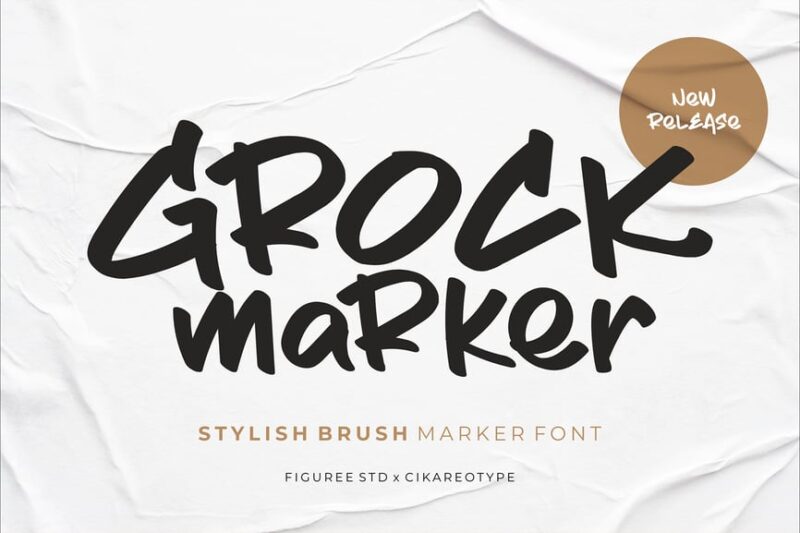
Grock Marker is a stylish brush marker font that combines decorative elements with a handwritten feel. Its bold strokes and casual appearance make it perfect for creating eye-catching designs with a personal touch.
Filling station
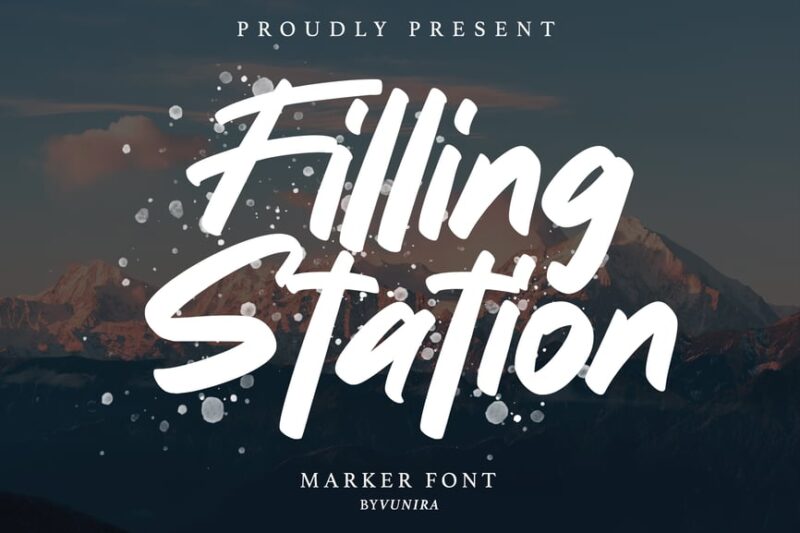
Filling station is a versatile marker font that blends sans-serif and script styles. Its unique combination of structured and freeform elements makes it ideal for display purposes and decorative applications in graphic design projects.
Leymark
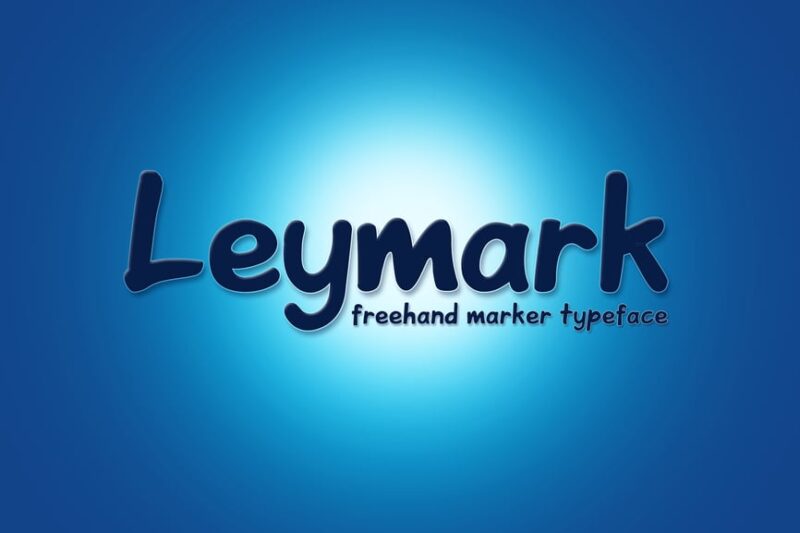
Leymark is a playful sans-serif font with a marker-like quality. Its fun and decorative nature makes it suitable for various design projects, especially those requiring a lighthearted and approachable feel.
Markerina
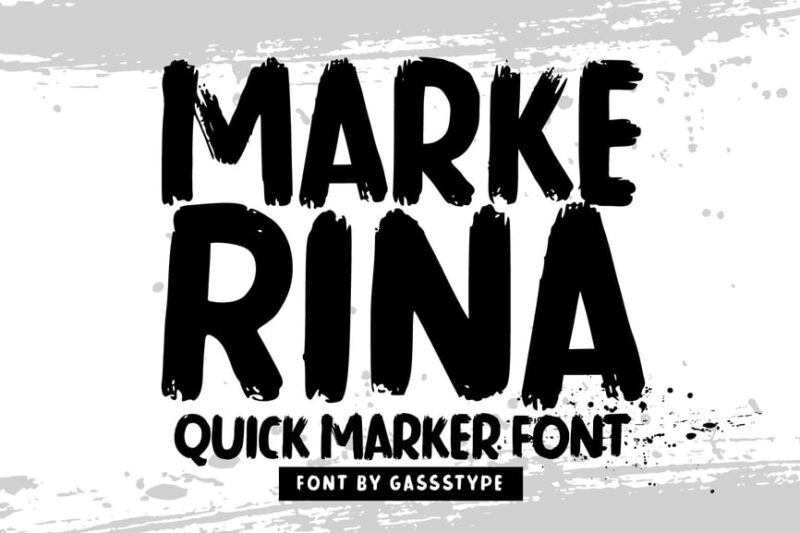
Markerina is a bold marker brush font with a strong handwritten character. Its thick strokes and dynamic appearance make it perfect for creating impactful headlines and eye-catching design elements.
Jhon Back Street Marker
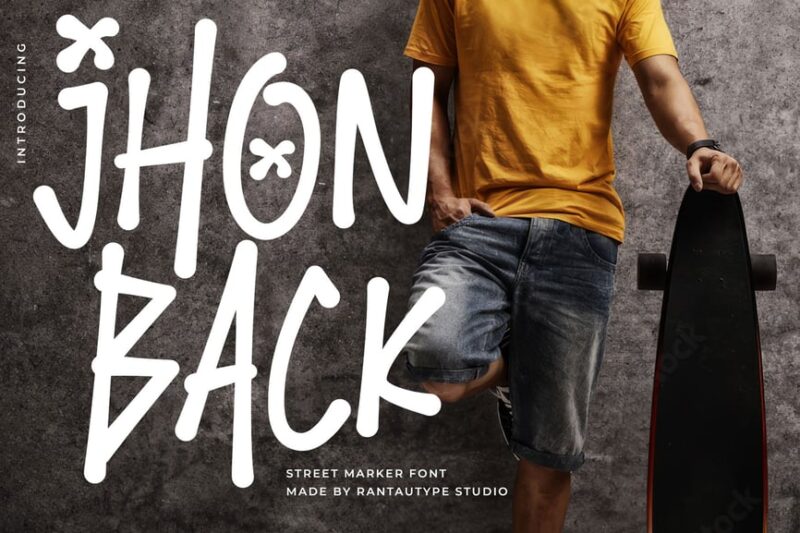
Jhon Back Street Marker is a handwritten font with a street-style aesthetic. Its rough edges and casual flow make it ideal for designs that require an urban, edgy feel, such as posters or brand identities.
Marker Vandero
Marker Vandero is a script font with a rough, college-inspired look. Its uneven strokes and spontaneous appearance make it perfect for designs that need a youthful, energetic vibe.
Clint Marker
Clint Marker is a sans-serif brush graffiti font with a street art aesthetic. Its bold strokes and urban character make it ideal for designs that require a raw, expressive feel.
Gallantry Dry Marker Font
Gallantry Dry Marker Font is a cursive font that mimics the look of a dry marker. Its authentic, slightly faded appearance makes it perfect for signature-style designs and personal branding projects.
Microphone Check
Microphone Check is a marker font with a distinct handwritten quality. Its brush-like strokes and natural flow make it ideal for designs that require a personal, authentic touch.
Write Marker
Write Marker is a bold marker font designed for logos and headlines. Its strong, confident strokes make it perfect for creating impactful brand identities and eye-catching design elements.
Rebel Marker
Rebel Marker is a playful, modern marker font that combines sans-serif structure with decorative elements. Its versatile nature makes it suitable for a wide range of design projects, from branding to editorial layouts.
Rushcaps
Rushcaps is a bold, all-caps marker font with a street-inspired aesthetic. Its strong presence and urban character make it ideal for designs that need to make a statement, such as posters or headlines.
Marker Street
Marker Street is a handwritten urban font that combines sans-serif and script elements. Its brush-like strokes and dynamic appearance make it perfect for designs that require an authentic, street-art feel.
Great Journal
Great Journal is a natural marker font with an ink-like quality. Its organic strokes and fluid appearance make it ideal for designs that require a personal, journalistic touch, such as editorial layouts or blog headers.
Giboorish
Giboorish is a handwritten marker typeface with a unique character. Its irregular strokes and spontaneous feel make it perfect for designs that need a personal, authentic touch, such as social media graphics or packaging designs.
Memper
Memper is a multilingual script font with a contemporary feel. Its versatile nature and smooth flow make it suitable for a wide range of design projects, especially those requiring a modern, sophisticated touch.
As you explore the world of marker fonts, remember that the best typography serves the message, not the other way around. Let your marker font choice support your design goals, enhance your brand personality, and most importantly, help you connect with your audience in a meaningful way.
So go ahead, make your mark. In a world full of perfect pixels and sterile interfaces, sometimes the most powerful design choice is the one that looks like it was made by human hands. And that’s exactly what marker fonts give you – the perfect imperfection of human creativity.